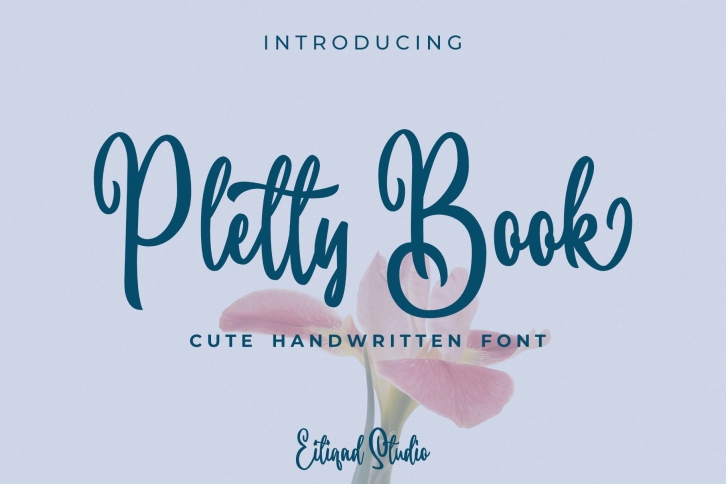
Pletty Book is a gorgeous font that was realeased on June 2, 2021. The font can be used in many style contexts and design environments. Perfect for invitations, magazines, websites, logos, and more! It was designed by eitiqad and the file size is 10.30 MB. Thanks for checking out this font!